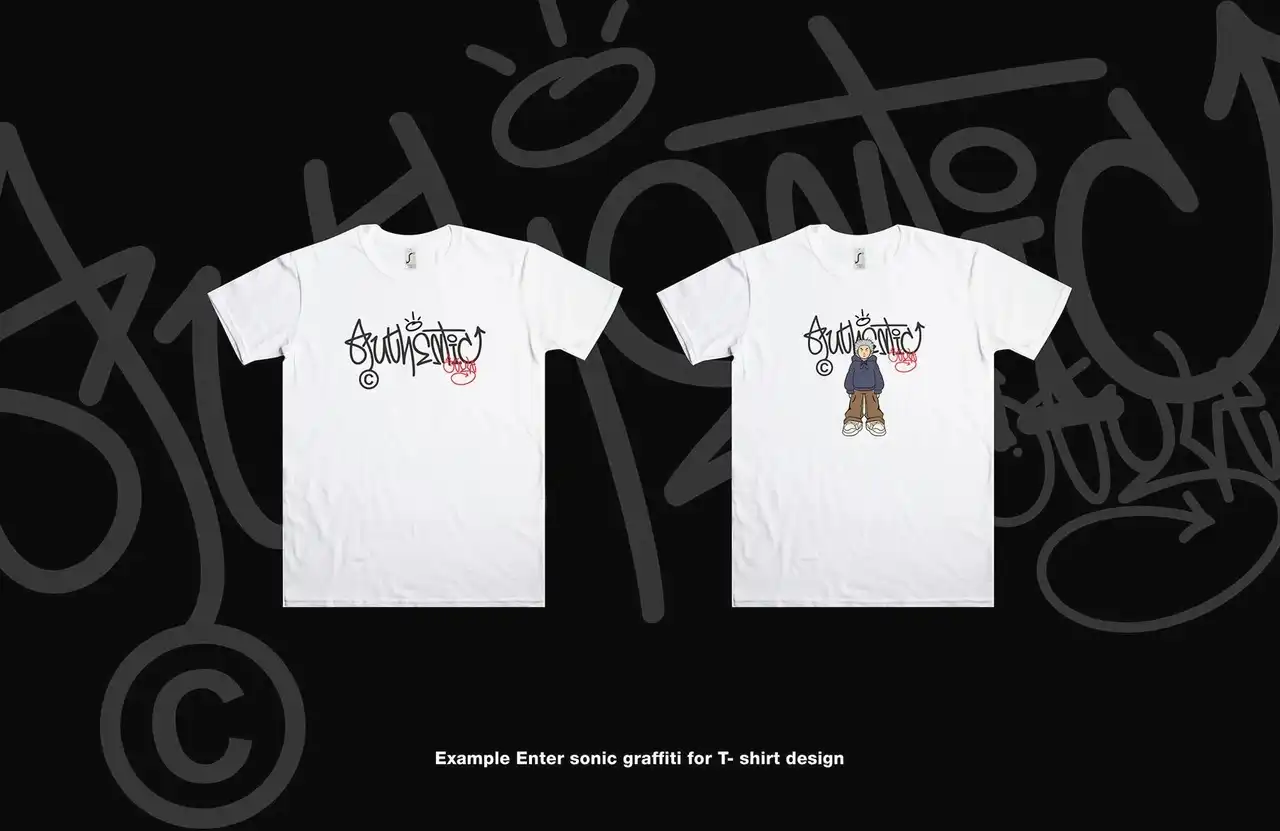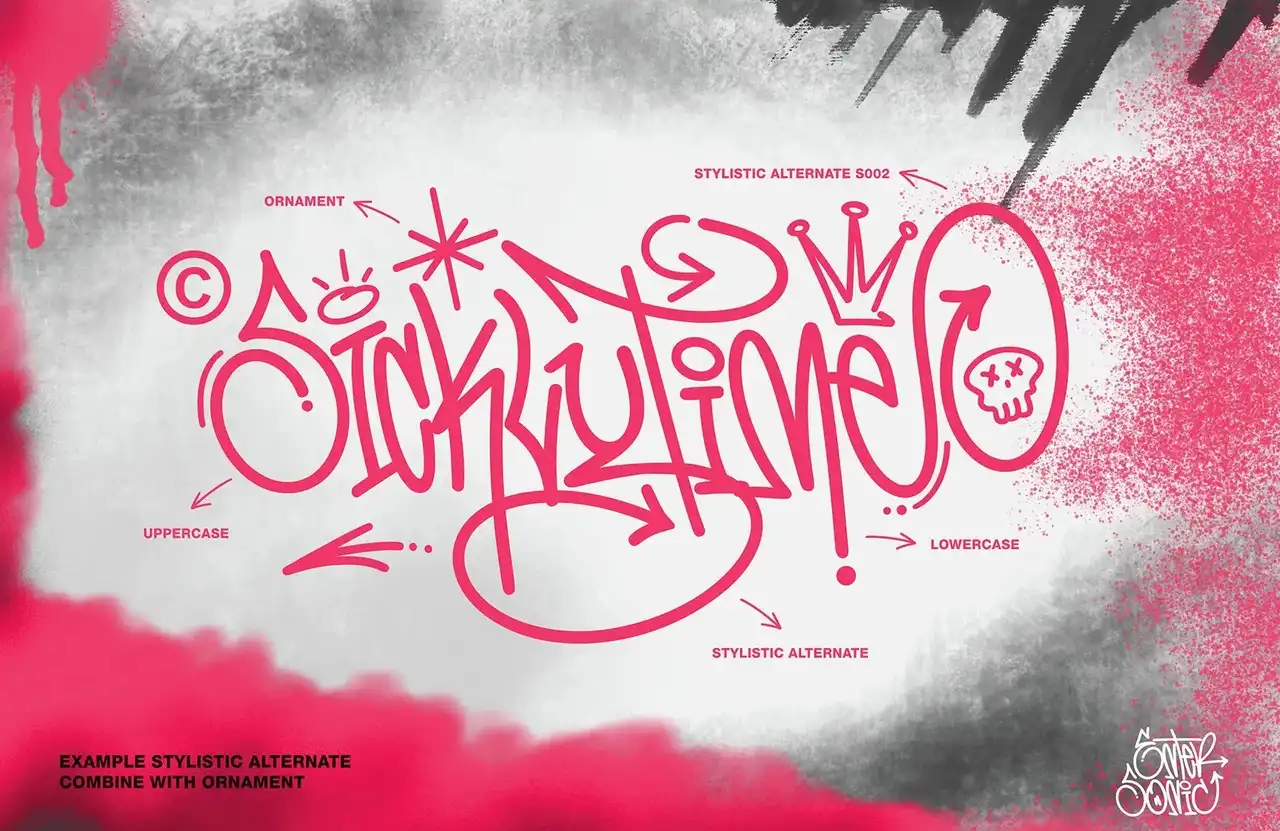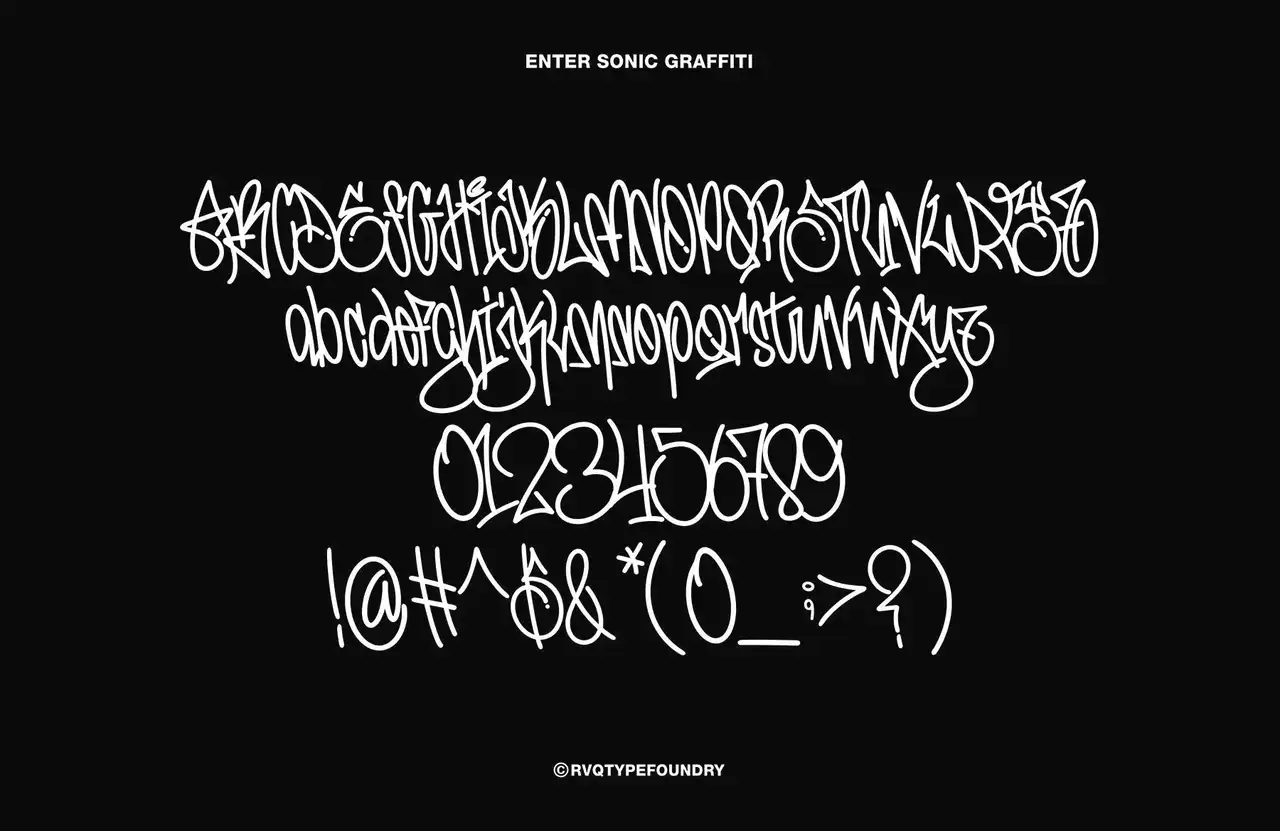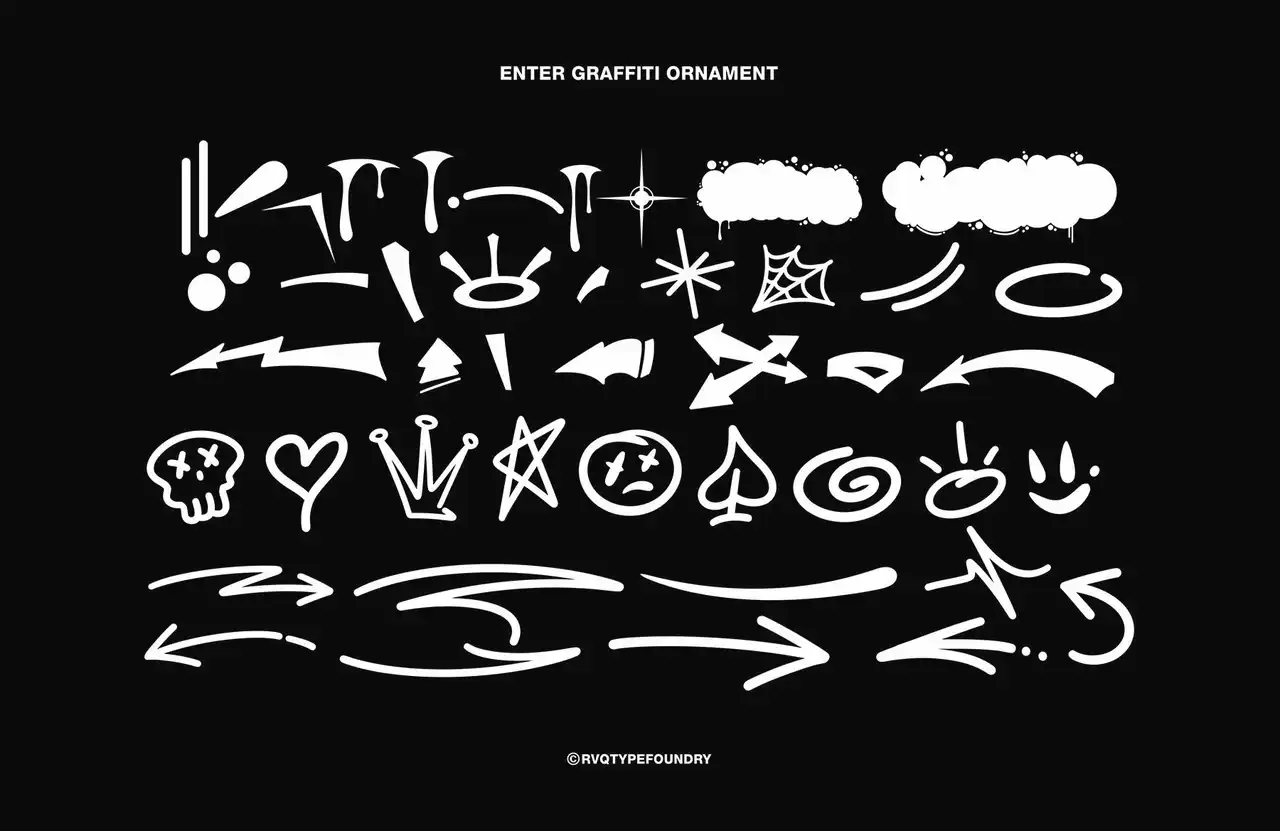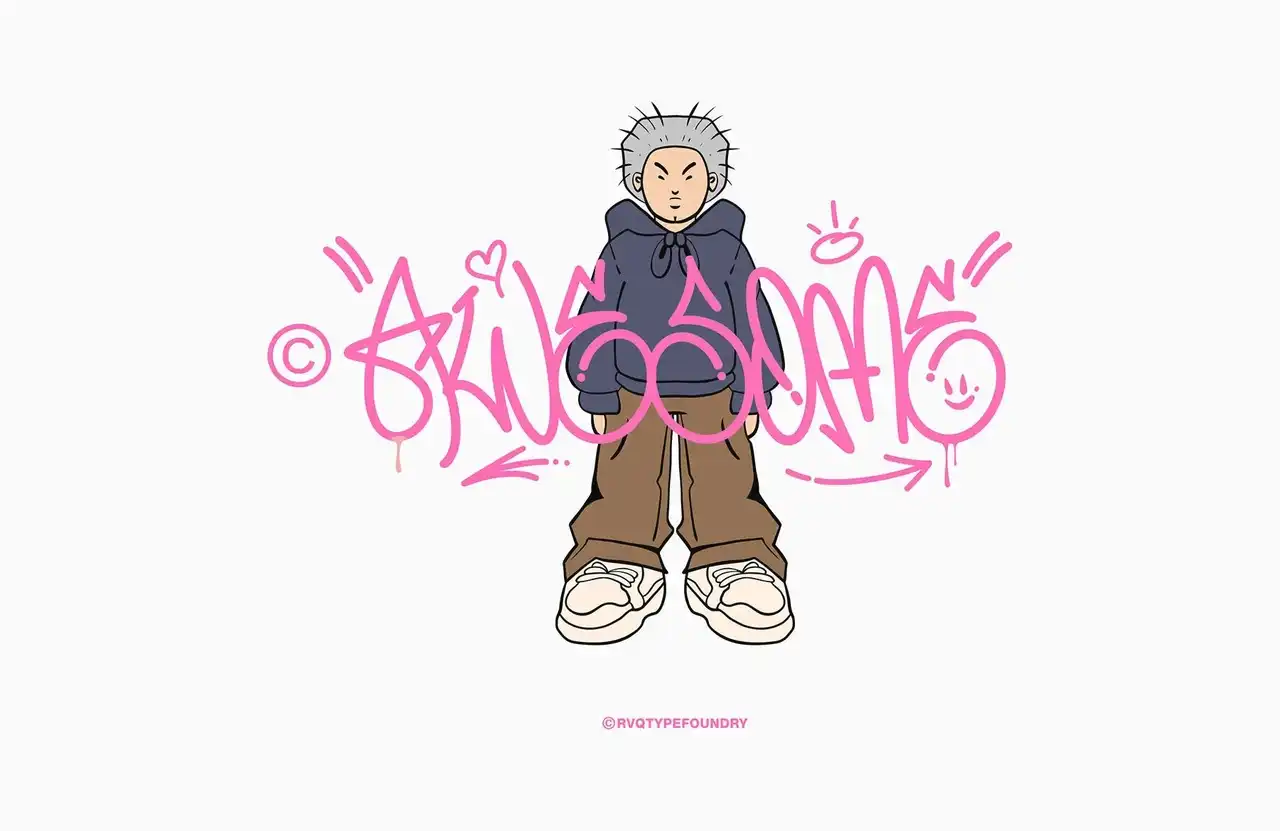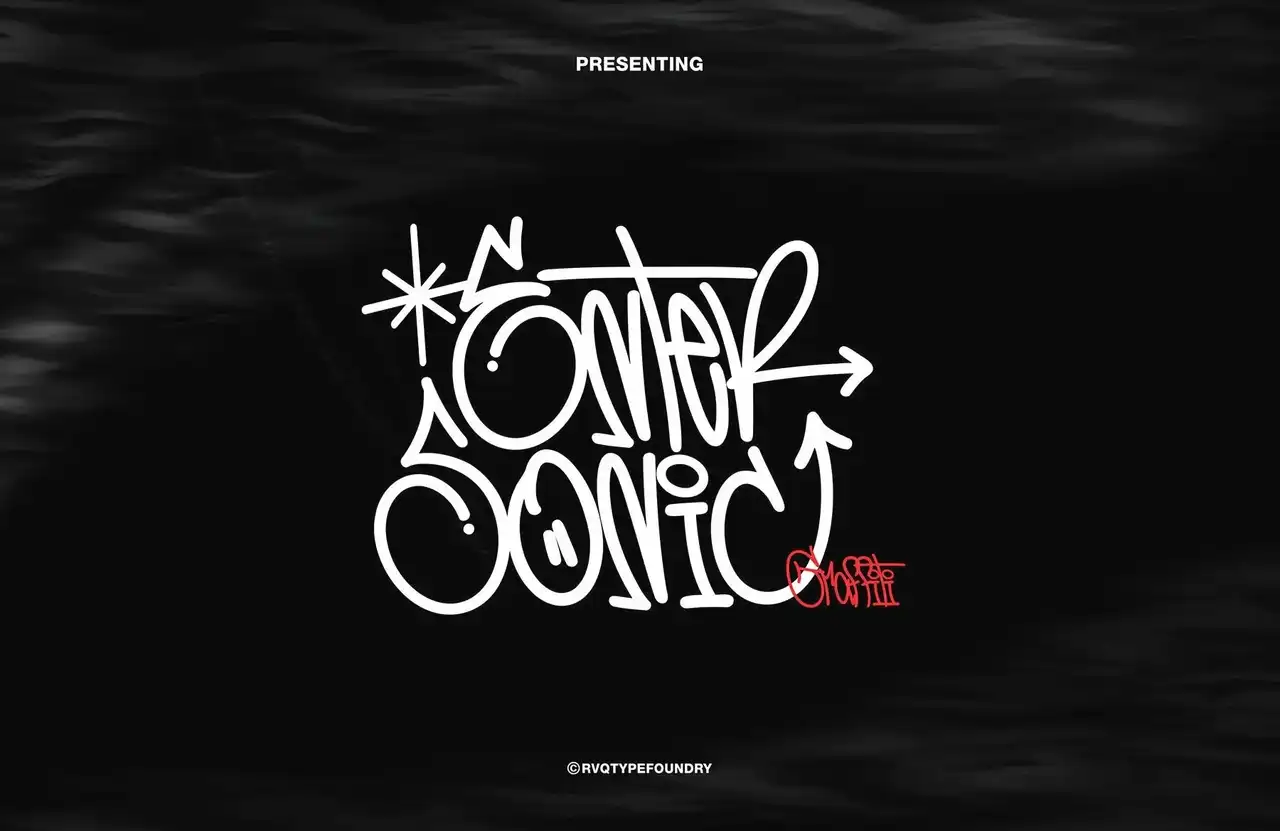
Introducing the Enter Sonic Graffiti Font! 🎉 This digital download offers instant access to a stunning, bold handwritten typeface that effortlessly elevates your design projects. Perfect for making headlines pop and logotypes stand out, this font exudes a strong, confident vibe that brings a touch of nostalgia to your creations. Whether you’re working on street art, branding, or creative typography, this font adds a unique flair that resonates with the energetic spirit of graffiti art. 🎨✨
The Enter Sonic Graffiti Font is not just another typeface; it’s a celebration of creativity and self-expression! With its edgy style and vibrant personality, this font is ideal for designers looking to make a bold statement. It’s perfect for those wondering, is there a graffiti font that captures the essence of urban culture? Look no further!
- Bold Handwritten Style: Makes your text stand out and captures attention instantly.
- Dynamic Design: Adds a lively, artistic touch to any project.
- Versatile Usage: Suitable for various applications, from posters to digital designs.
- Easy to Customize: Perfect for font pairing and creative typography.